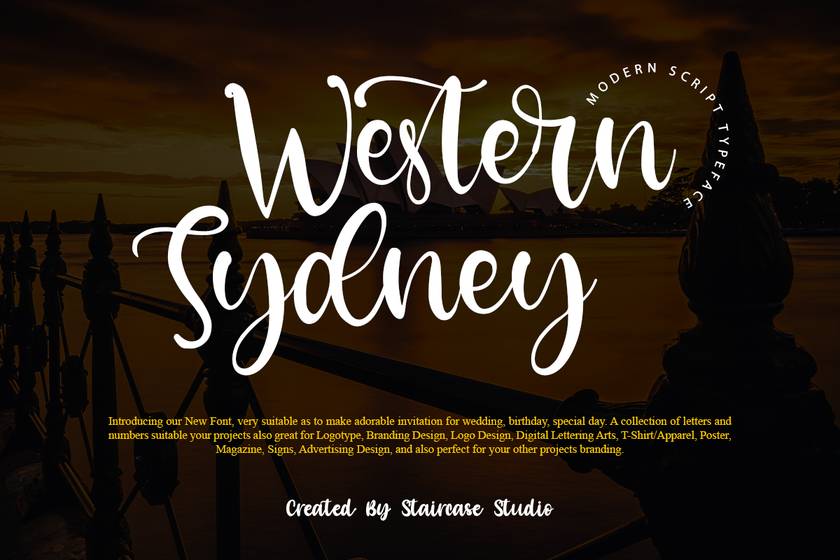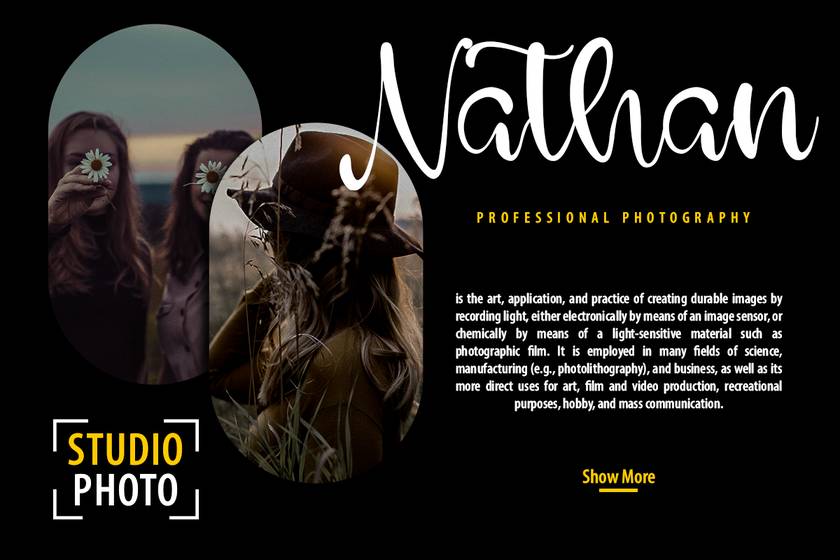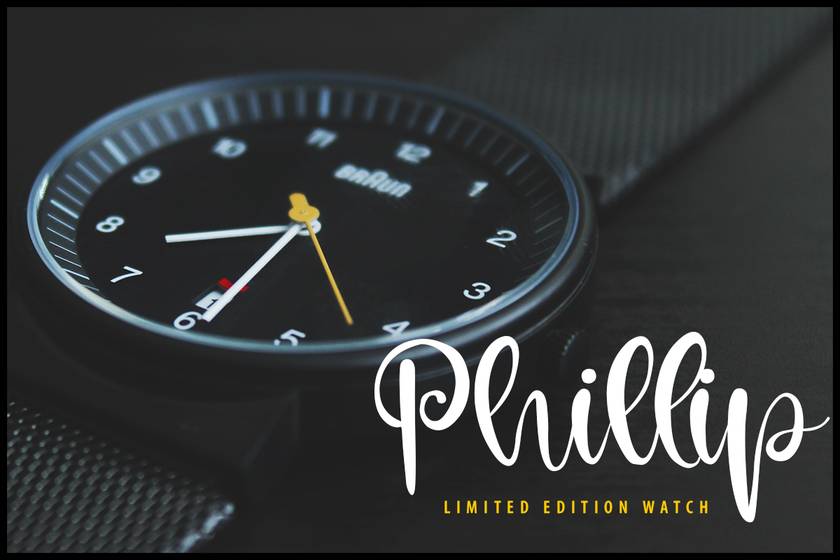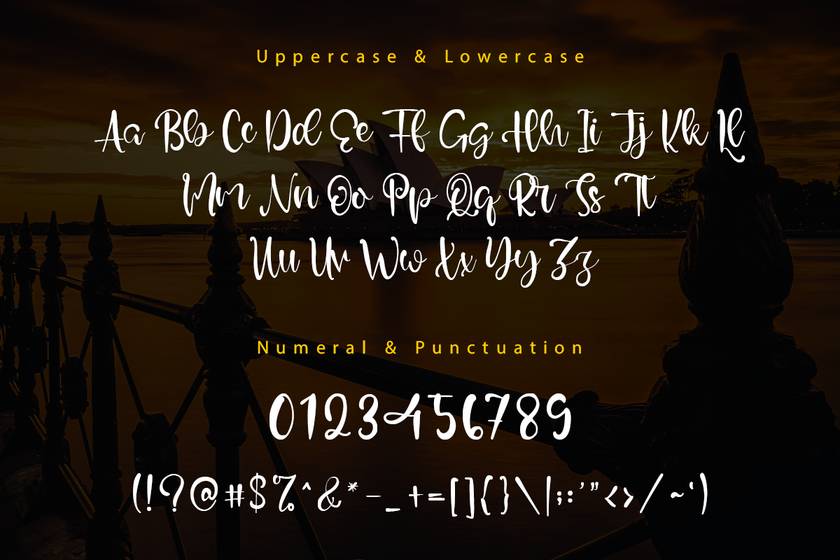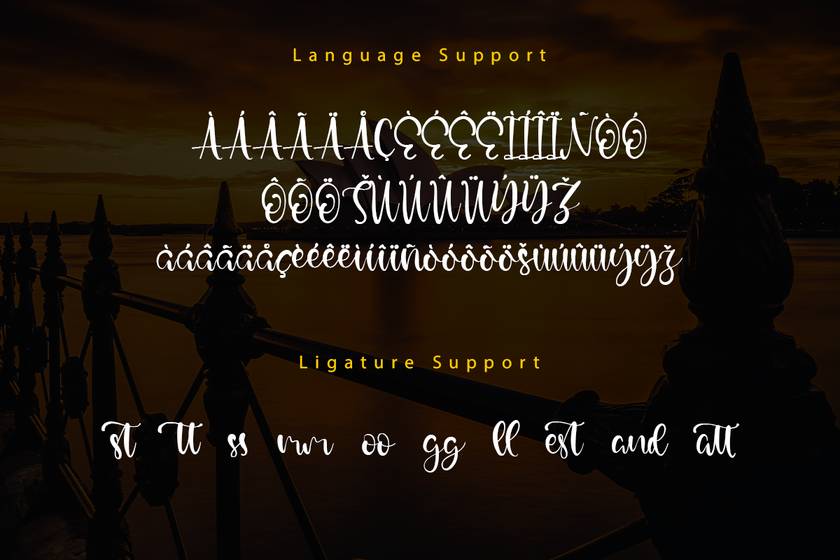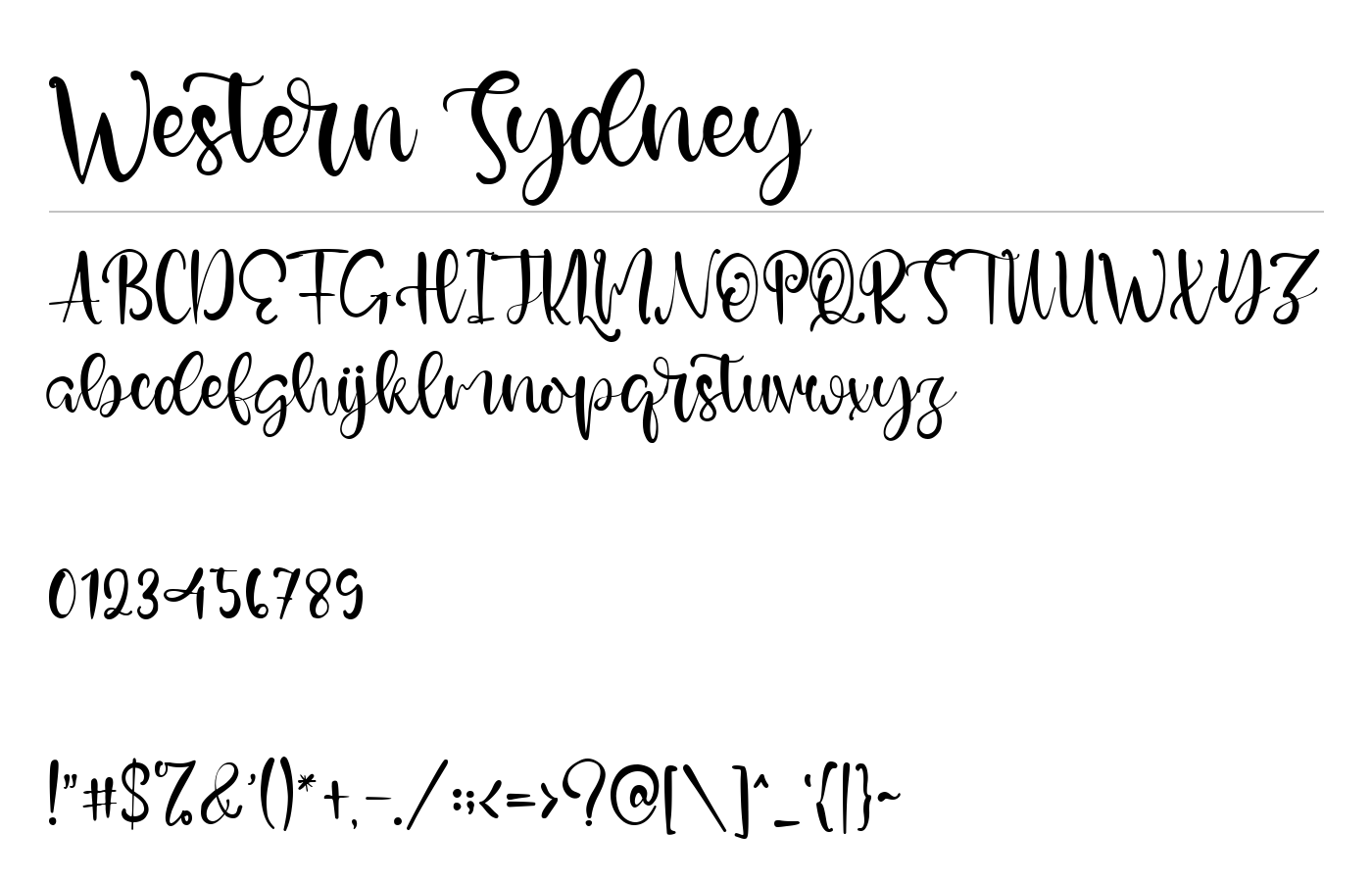
Western Sydney Font is a playful and elegant script typeface with smooth, flowing strokes and charming swashes that give it a handwritten feel. Its medium weight, moderate contrast, and lively letterforms make it perfect for creative branding, invitations, and headlines where a friendly yet stylish vibe is desired. Ideal for projects seeking a personal touch with warmth and sophistication.
Western Sydney Font
About Western Sydney Font